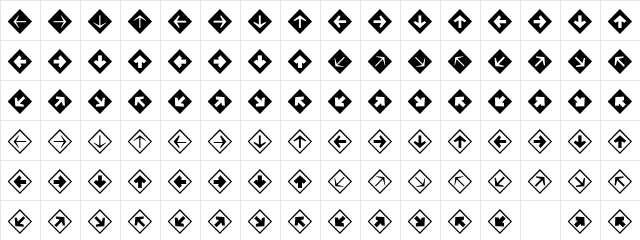
Mini Pics Directional DA Free Font
Mini Pics Directional DA
Style: Directional DA
Design Context for Mini Pics
Mini Pics is a composed and adaptable typeface that performs quietly and consistently across a wide range of design contexts.